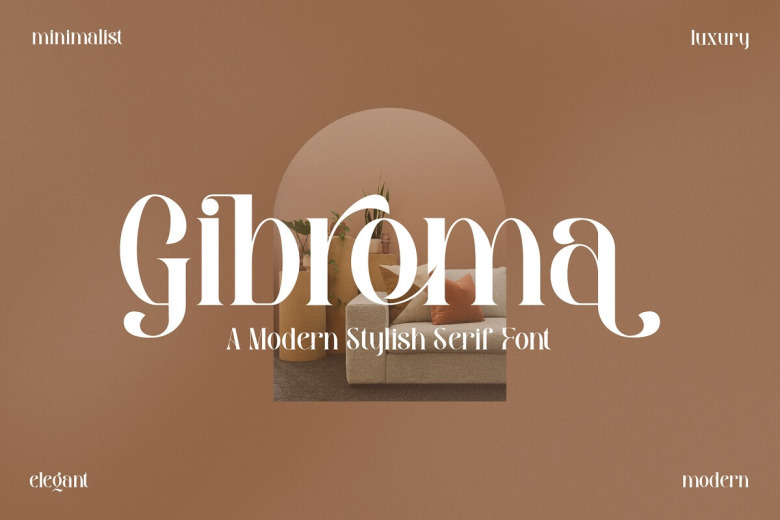
Gibroma Font
Proudly present Gibroma Serif Font, created by Storytype, A serif modern and classic typeface that has own unique style & modern look. This typeface is perfect for an elegant & luxury logo, book or movie title design, fashion brand, magazine, clothes, lettering, quotes, and so much more.
Gibroma Serif Font